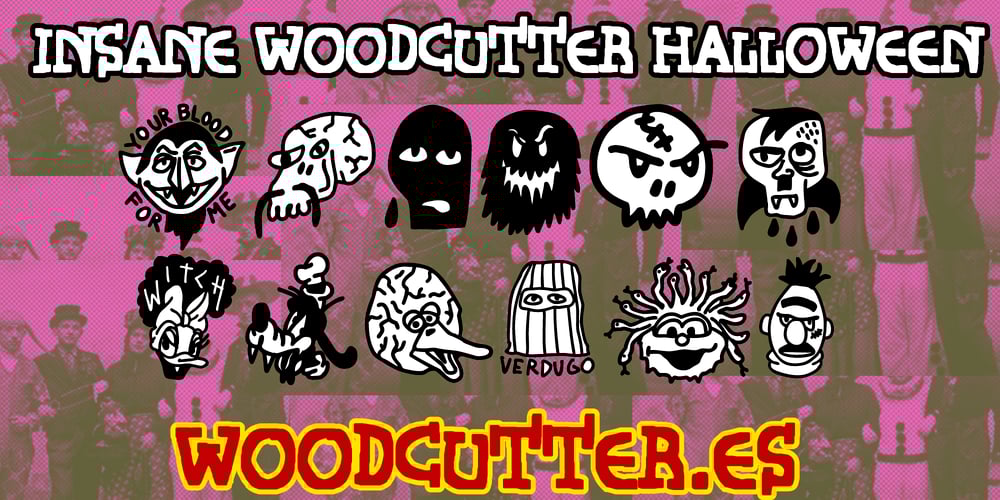
Insane Woodcutter Halloween
Insane Woodcutter Halloween font
Insane Woodcutter Halloween Font Family was designed by Jordi Manero and published by Woodcutter. Insane Woodcutter Halloween contains 1 styles and family package options. “Insane Woodcutter Halloween” is a dingbat typeface featuring fun and crazy Halloween-themed drawings. Each character in this font is packed with spooky pumpkins, playful ghosts, mischievous bats, and other iconic Halloween symbols, all with a lighthearted and comedic twist. Perfect for decorating party invitations, posters, and craft projects, “Insane Woodcutter Halloween” brings a festive and fun spirit to any design. Its unique and creative style is perfect for capturing the playful and joyful essence of this celebration, making your projects stand out with a touch of madness and fun.